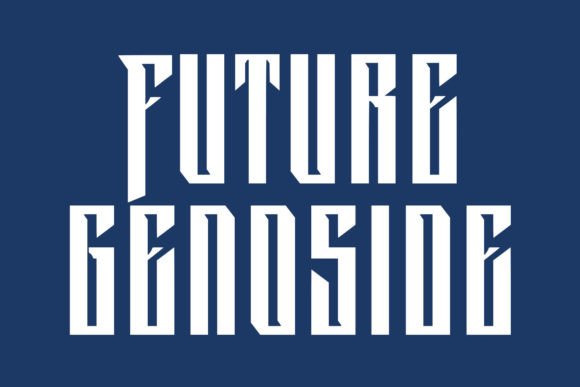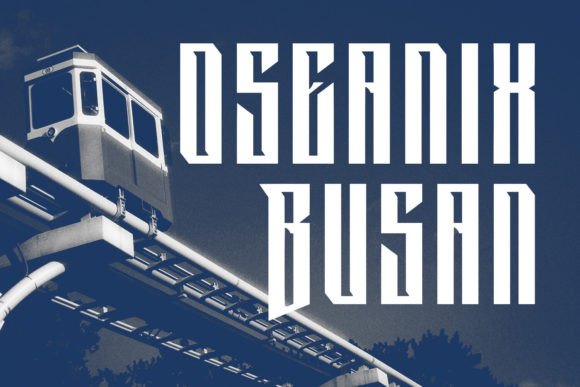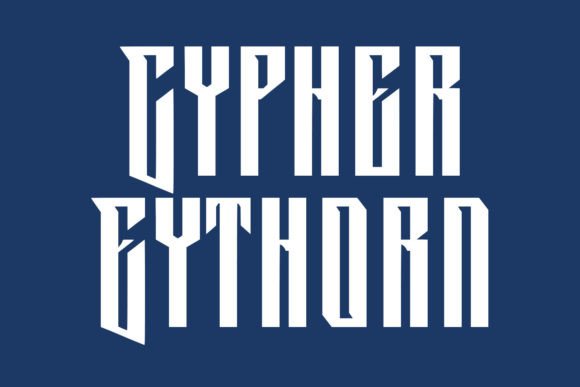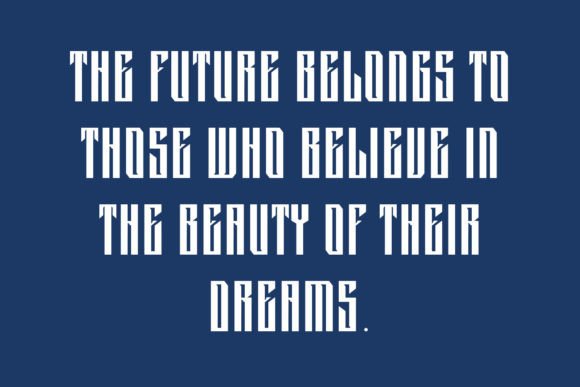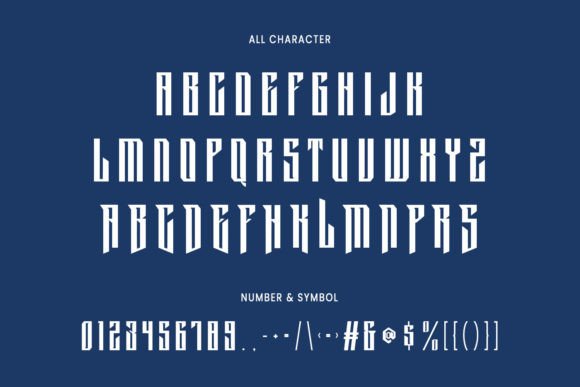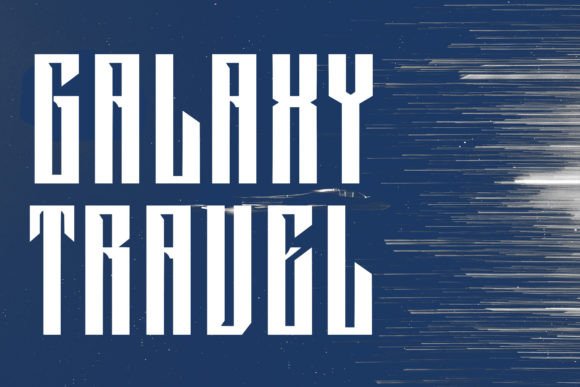
Cranax Font: Unleash Your Creativity with this Decorative Display Font
Are you looking for a font that can add a touch of personality to your designs? Look no further than Cranax Font, a decorative display font that is sure to make your work stand out. With its bold strokes, fun character, and stylish ligatures, Cranax Font is the perfect choice for designers and crafters who want to add a bit of flair to their projects.
What Makes Cranax Font Special?
Cranax Font is a unique and creative font that offers a range of features that set it apart from other fonts. Here are just a few of the things that make Cranax Font special:
- Bold Stroke: Cranax Font features bold strokes that give it a distinctive look and make it perfect for headlines, titles, and other display text.
- Fun Character: The font has a playful and fun character that is sure to add a touch of personality to your designs.
- Ligatures and Stylistic: Cranax Font includes ligatures and stylistic alternatives that allow you to customize your text and add an extra layer of creativity to your designs.
- Multilingual Support: With support for over 100 languages, Cranax Font is a great choice for designers who work with international clients or want to create designs that can be used globally.
What Can You Use Cranax Font For?
Cranax Font is a versatile font that can be used for a wide range of design projects. Here are just a few ideas to get you started:
- Logo Design: The bold and playful character of Cranax Font makes it perfect for logo design. Use it to create a unique and memorable logo that will help your brand stand out.
- Social Media: Cranax Font is a great choice for social media graphics, including Facebook posts, Instagram stories, and Twitter headers.
- Movie Titles: The font’s bold and stylish character makes it perfect for movie titles, film posters, and other cinematic designs.
- Books Titles: Use Cranax Font to create eye-catching book titles, chapter headings, and other typographic elements for your next design project.
- Short and Long Text: Whether you’re working with short phrases or long blocks of text, Cranax Font is a great choice. Its clear and readable character makes it perfect for body text, while its bold strokes and ligatures make it perfect for headlines and titles.
Pairing Cranax Font with Other Fonts
One of the best things about Cranax Font is its versatility. It can be paired with a range of other fonts to create a unique and stylish look. Here are a few suggestions for pairing Cranax Font with other fonts:
- Script Fonts: Pair Cranax Font with a script font for a elegant and sophisticated look. The contrast between the bold, playful character of Cranax Font and the flowing curves of a script font creates a beautiful and eye-catching combination.
- Serif Fonts: For a more traditional look, pair Cranax Font with a serif font. The combination of the bold, modern character of Cranax Font and the classic, timeless look of a serif font creates a stylish and versatile design.